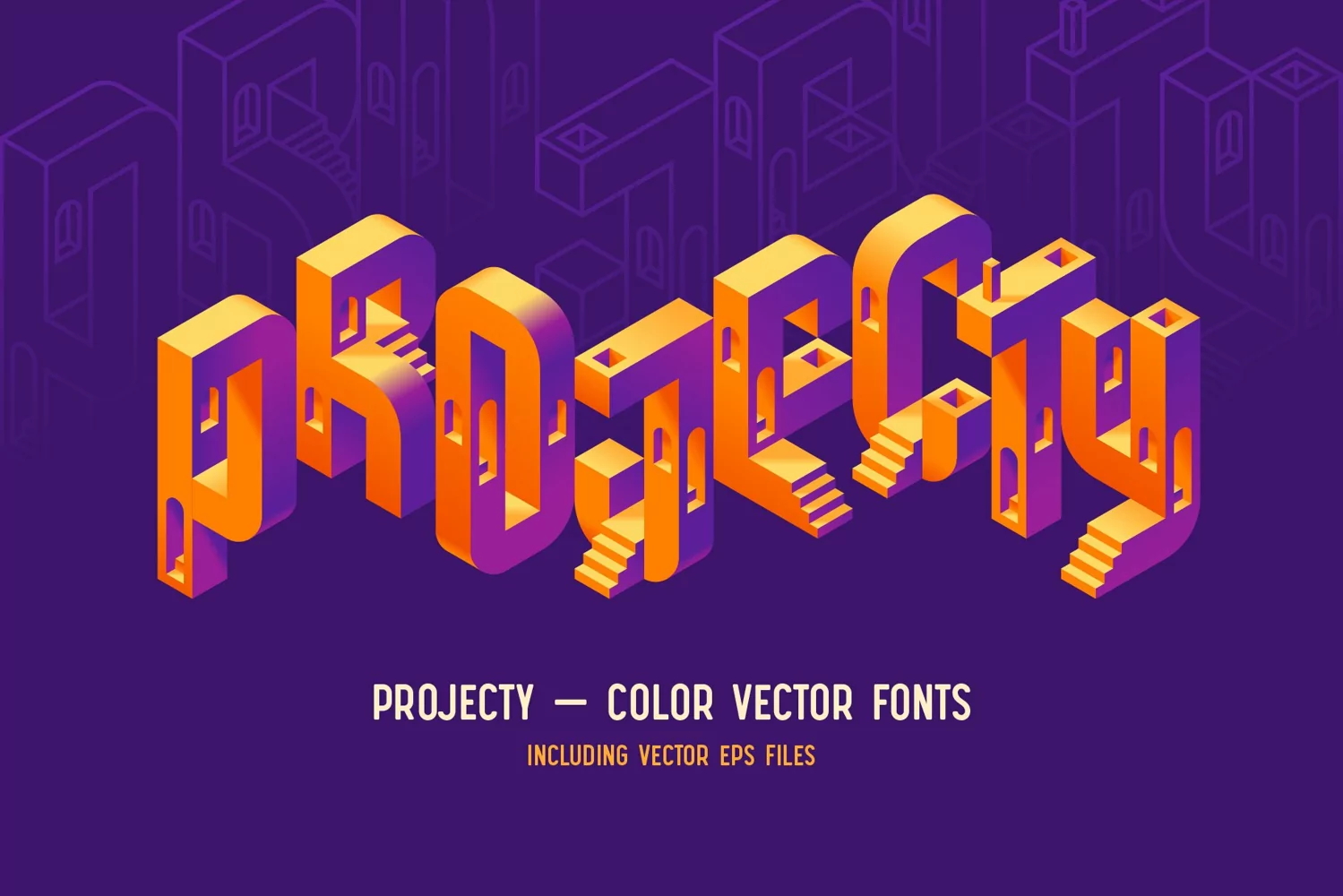
Hello! Presenting a vector font set – Projecty. It's a creative typeface made in 3d isometric shape with stairs and windows. One color font and two classic fonts are included. Also a set of vector EPS and raster PNG files with transparent background is included. Consider that only english language and basic punctuation is supported, please check out the screenshot with all available characters.